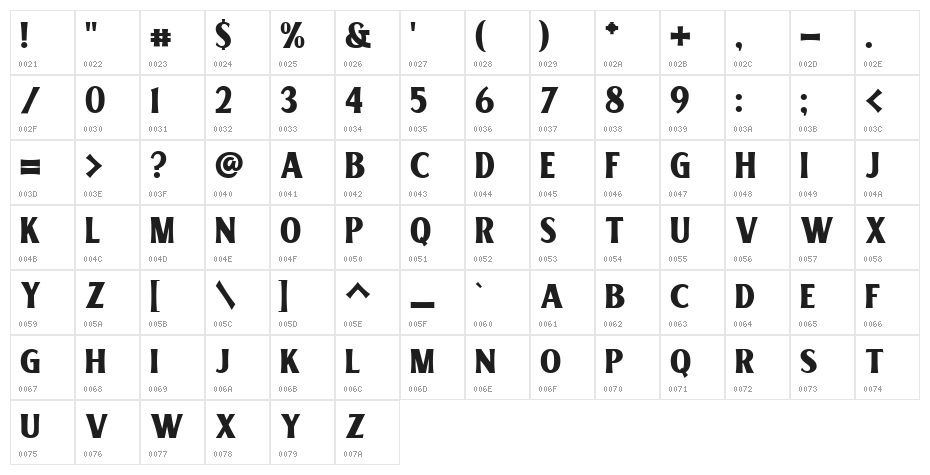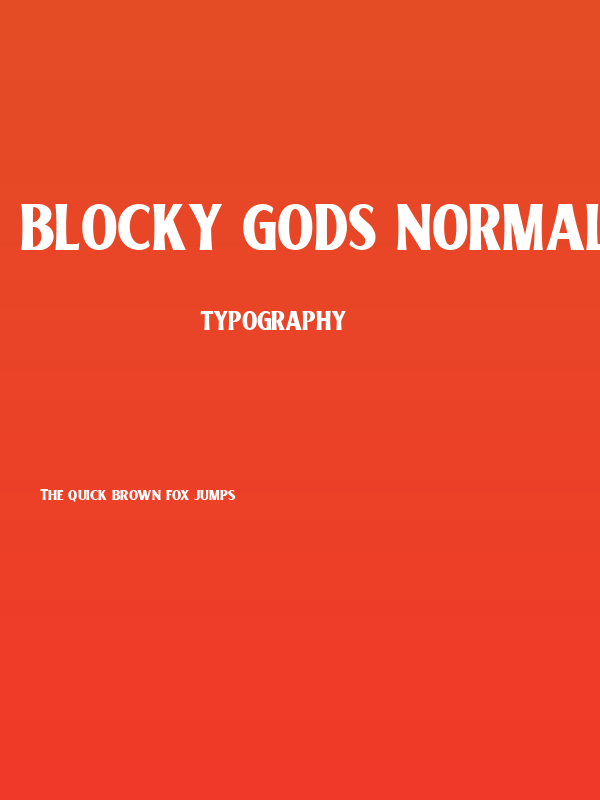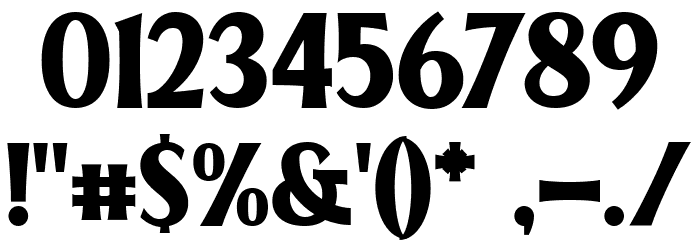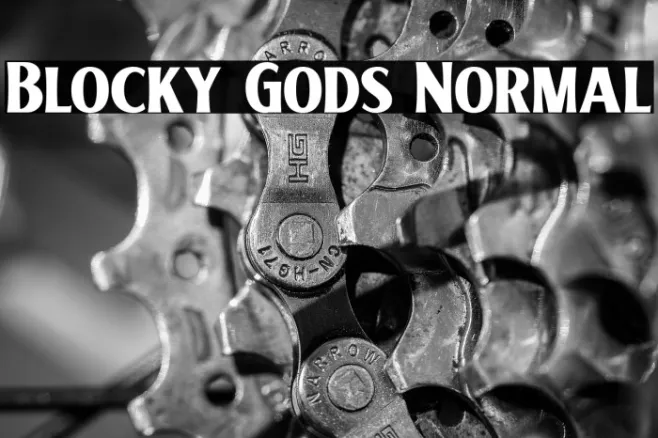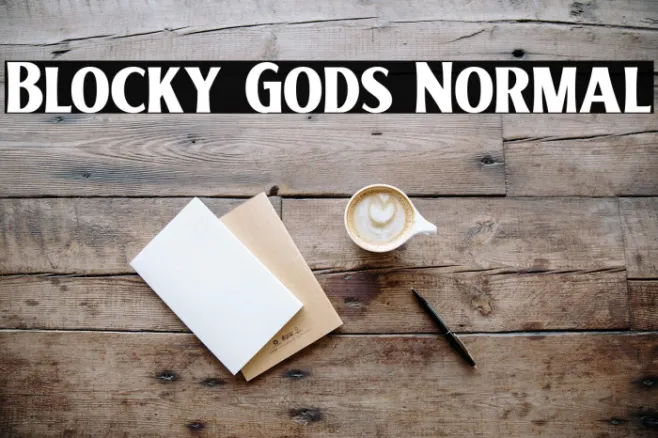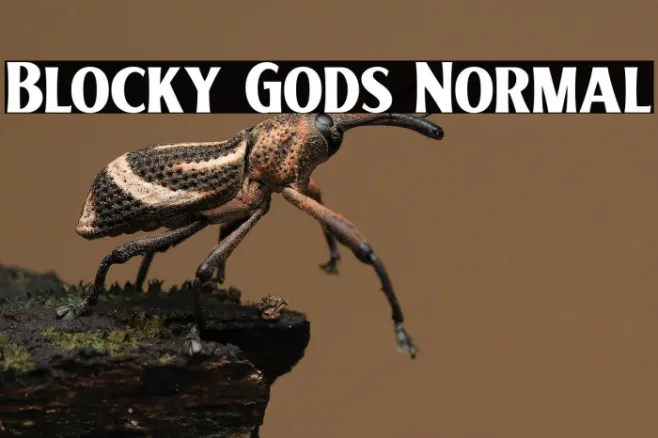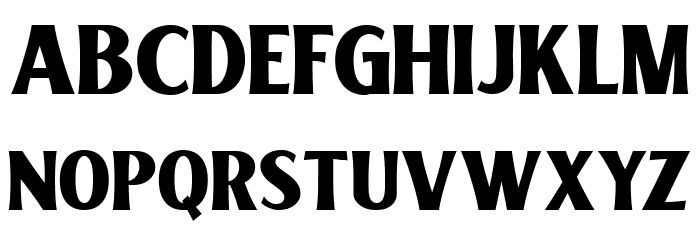
Blocky Gods Normal Font
Blocky Gods Normal Description
This font exhibits a bold and dynamic style with a strong presence. The characters are thick and blocky, featuring sharp angles and a slightly condensed form. The uppercase letters are particularly striking, with a consistent weight that emphasizes their geometric shapes. The numerals and special characters maintain the same boldness, ensuring uniformity across all glyphs. The font's design is reminiscent of vintage poster typography, making it ideal for creating impactful headlines and titles.
| Proposed Projects | Ideal for posters, logos, and headlines that require a strong visual impact. |